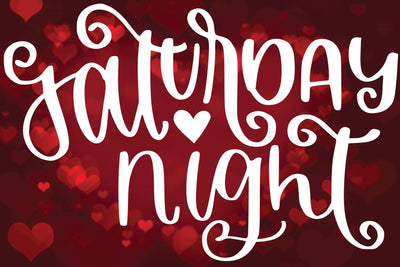
valentine night
, this font will be ideal for writing wedding invitations, cards or any other design that may need a dreamy, personalized touch! This font is PUA encoded which means you can access all of the glyphs and swashes with ease!